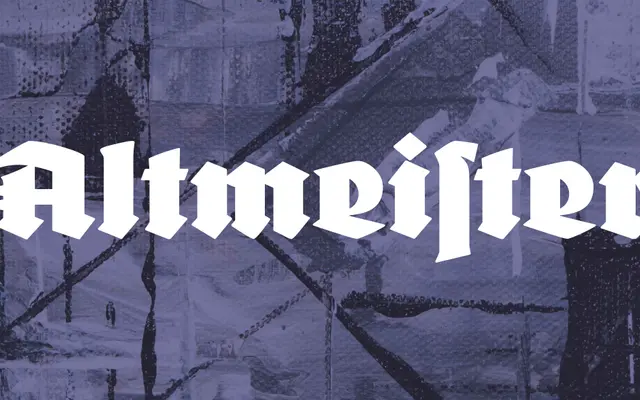
FDI Altmeister
FDI Type Foundry · Ludwig Wagner type foundry, Ralf Herrmann · 2021
A free revival of the 1927 Ludwig Wagner blackletter Deutschmeister, offering both traditional and modernised glyph variants across Western, Central and Eastern European Latin.
Originally issued as Deutschmeister by the Ludwig Wagner type foundry in 1927, this revival was carefully redrawn by Ralf Herrmann and funded through Kickstarter before being released under the Open Font License. The family ships in two styles toggling between traditional German blackletter conventions and modernised alternates designed to improve legibility in international contexts. Around 400 glyphs cover Western, Central and Eastern European Latin, and many characters carry OpenType alternates accessible in fully OpenType-aware applications.
A blackletter revival originally released as Deutschmeister in 1927, revived by Ralf Herrmann; the letterforms follow the textura tradition of German blackletter typesetting.